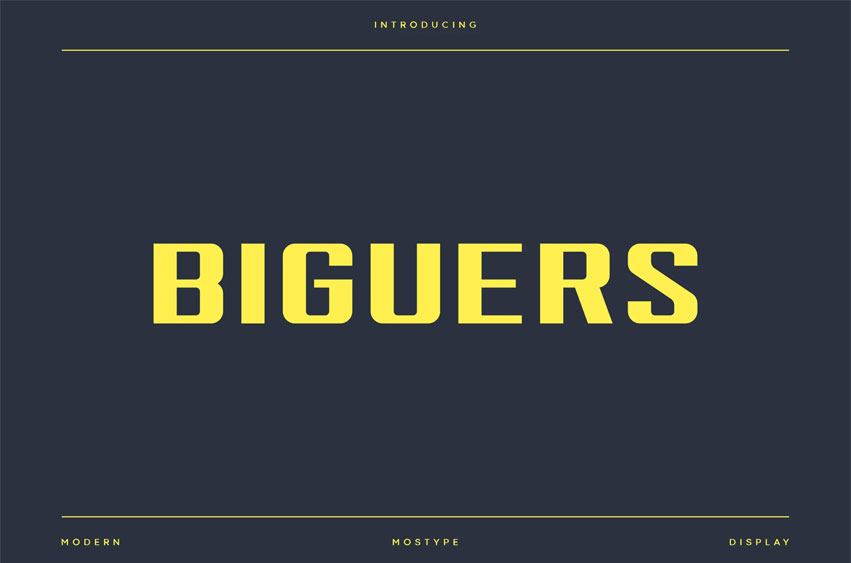
Biguers Font
Biguers Font is a simple and modern display font, this font have a distinct appeal that manages to effortlessly combine the formal look with a more playful one. Use this font for your designs and explore its endless possibilities.
Biguers was created with sports designers and their usages of type in mind, so you could utilize font on each sports design to really tie things together!